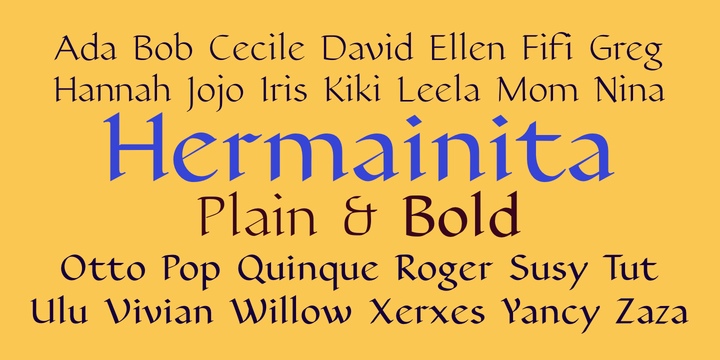
Hermainita Font
Hermainita Font is perfect for sisterhood organization branding, women's fellowship materials, family reunion invitations, sorority communications, close friendship greeting cards, intimate gathering designs, supportive community signage, and heartwarming social campaigns where sisterly bonds and feminine solidarity are celebrated.
What makes Hermainita Font so exciting is its nurturing ability to convey deep sisterly affection and feminine solidarity through graceful letterforms that embody the warmth and support found in meaningful female relationships while maintaining excellent readability for heartfelt communications. The caring character design reflects the unconditional love and mutual support that defines authentic sisterhood bonds.
The Hermainita Font family includes light, regular, medium, and bold weights, with script variants and sisterhood-inspired ornamental elements that provide comprehensive tools for creating authentic feminine community branding and supportive relationship design systems.
This heartwarming typeface captures the essence of sisterly connection, combining feminine authenticity with contemporary women's community requirements. The Hermainita Font Free Download gives women's organizations access to typography that communicates genuine sisterhood and feminine empowerment.
The font's gentle character flow and supportive proportions create immediate associations with sisterly care and feminine community support. Each letterform has been designed to evoke the tenderness and strength that defines meaningful relationships between women and supportive feminine communities.
Hermainita Font excels in creating touching communications that strengthen bonds between women and celebrate feminine solidarity. The typeface's nurturing character makes it ideal for women's groups, family organizations, and community initiatives targeting audiences seeking genuine sisterly connection and mutual support.
From women's retreats to family celebrations, this font brings authentic feminine warmth that resonates with audiences who value deep sisterly relationships and supportive female communities. The versatile design maintains its sisterly character across both traditional family materials and modern digital women's networking platforms.